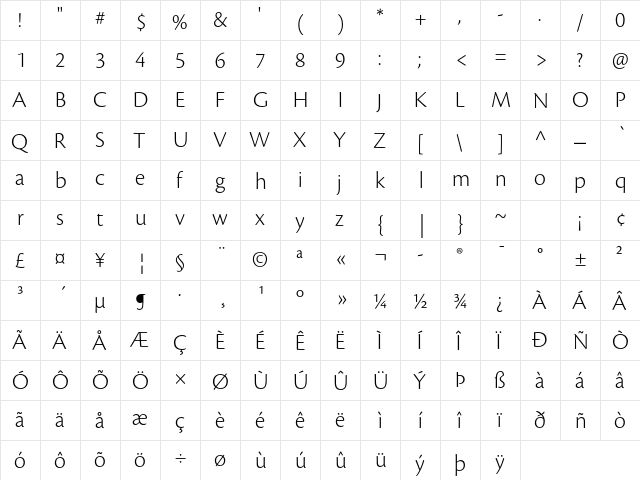
Cronos Pro Light Subhead
| Designer | Robert Slimbach |
Design Context for Cronos Pro Typeface
Cronos Pro takes a measured approach to typography — its balanced proportions and neutral character make it a reliable workhorse for both digital and print work. The delicate stroke weight brings airiness and refinement to layouts.